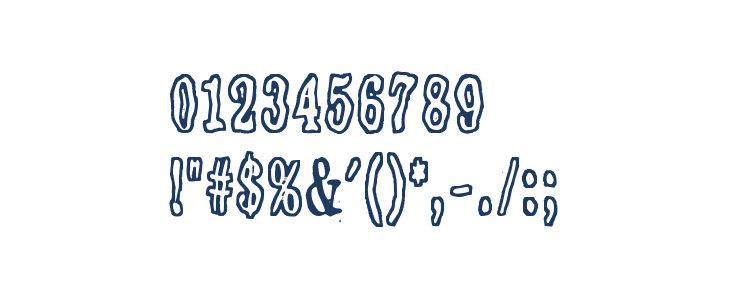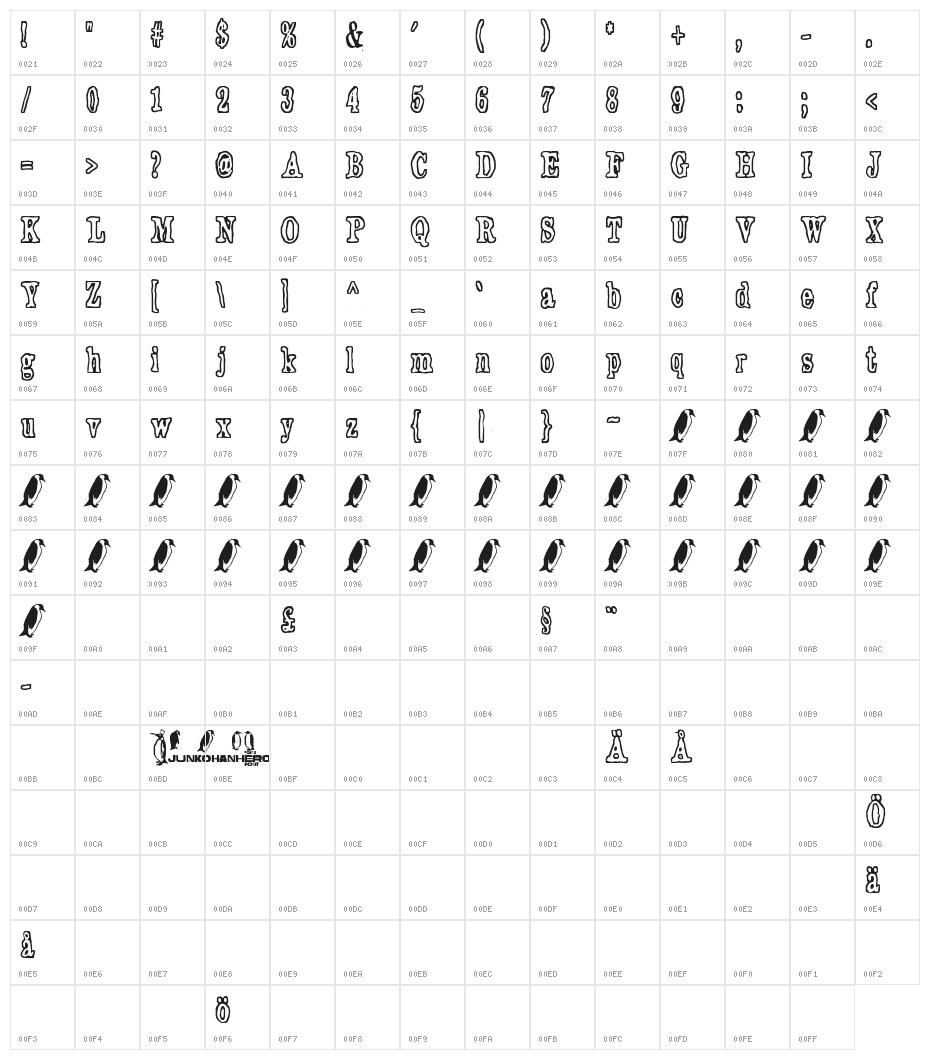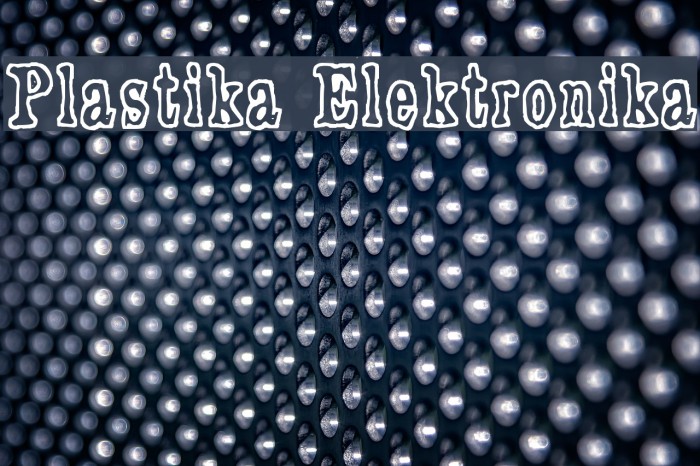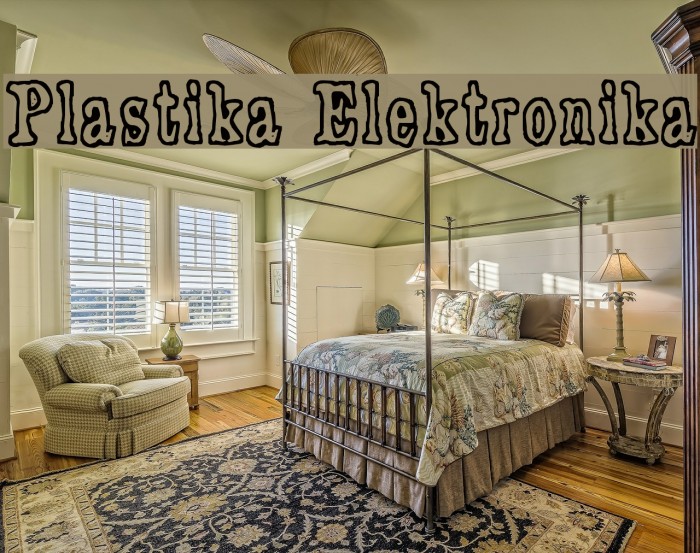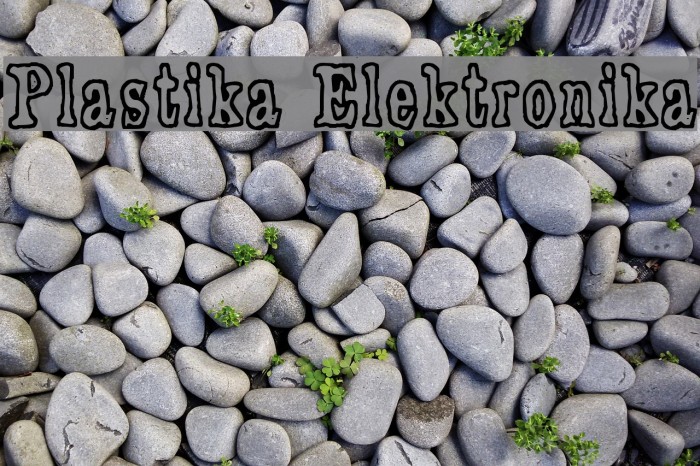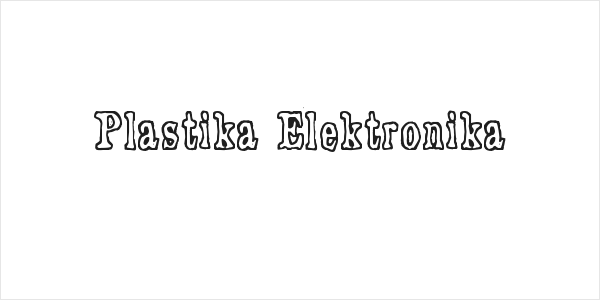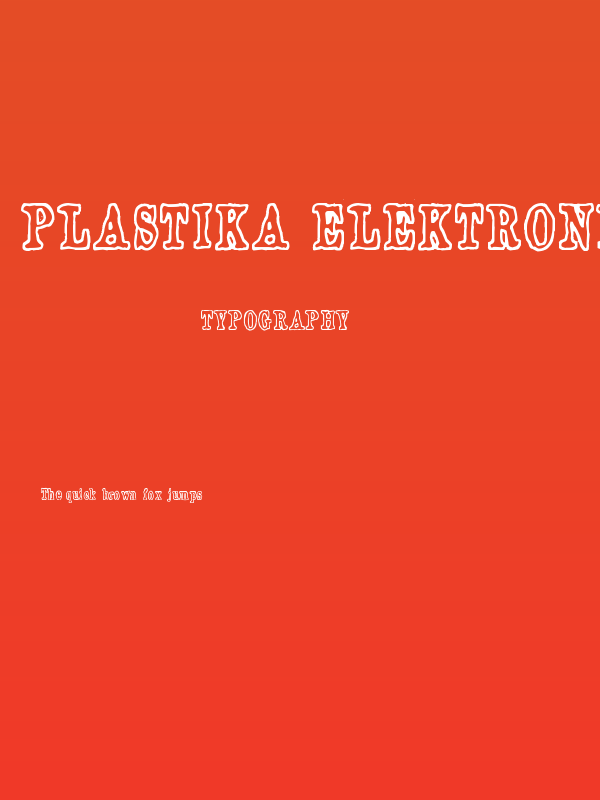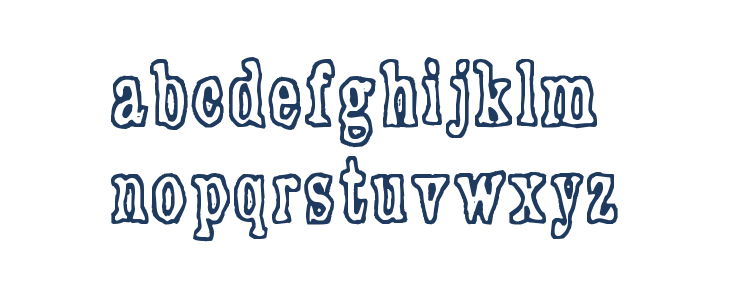
Plastika Elektronika Font
Plastika Elektronika Description
This font exudes a bold and playful character with its thick, uneven strokes and slightly distorted letterforms. The design features a hand-drawn aesthetic, giving it a unique and artistic flair. The uppercase and lowercase letters maintain a consistent style, with exaggerated serifs and a slightly rough texture that adds to its charm. Numbers and special characters follow the same quirky design, making it suitable for creative and unconventional projects. The font's distinct appearance makes it stand out, perfect for grabbing attention in headlines or artistic designs.
| Use Case | Headlines, Artistic designs, Creative branding |
| Proposed Projects | Ideal for posters, album covers, artistic projects, and creative branding. |